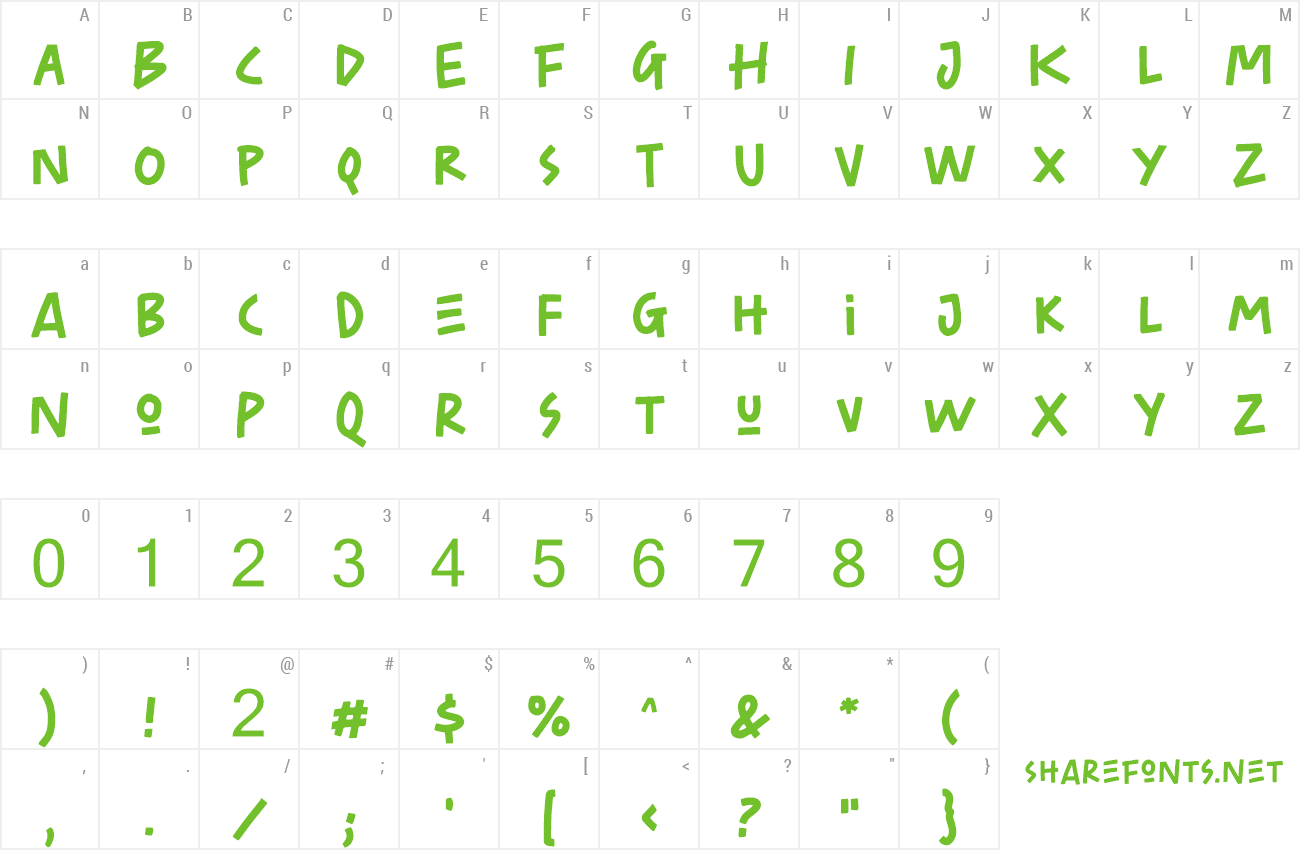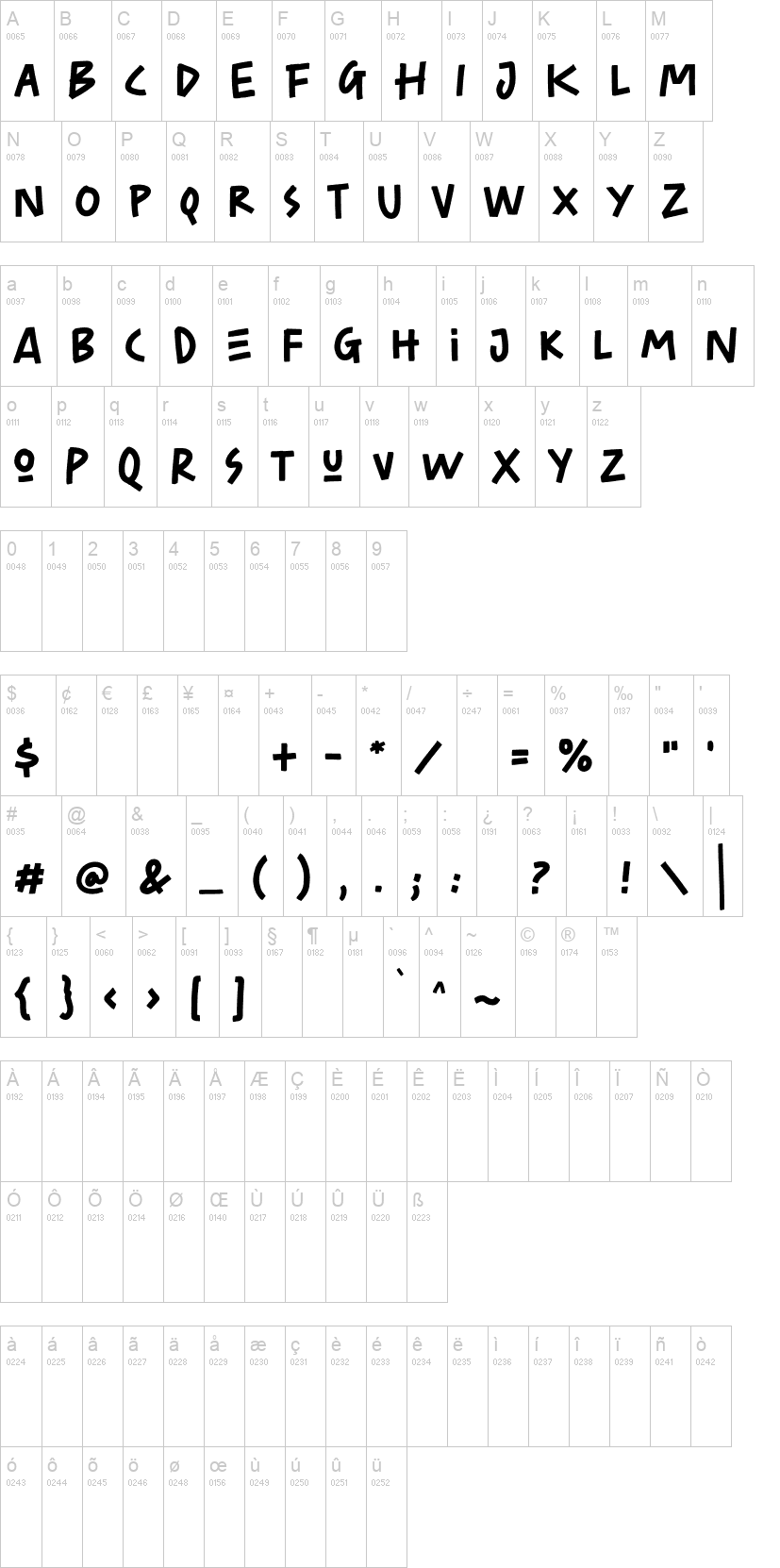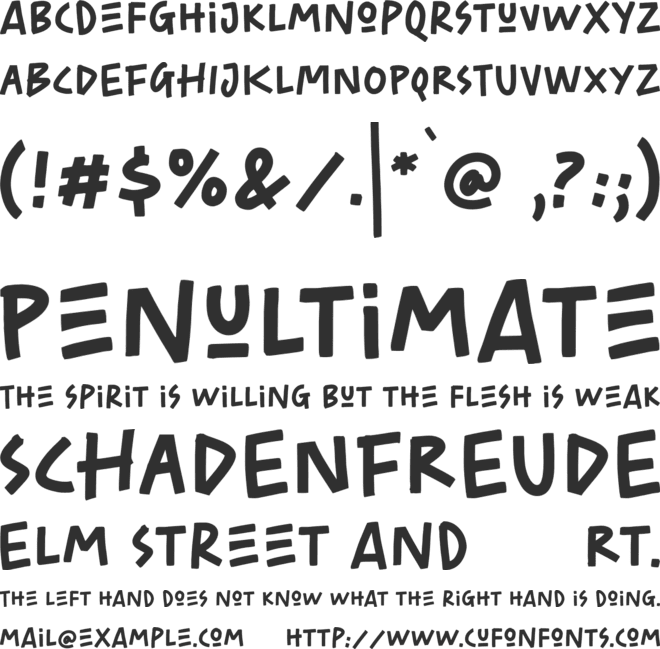
Blank Moment Font
Blank Moment Font - It has been downloaded 105 times. Web free download of blank moment font. 1 users have given the font a rating of 5.0 out of 5. Web blank moment regular is a regular opentype font. You can use this font for any project. Web blank moment by saridezra. This font will make your project more natural and humanist. Web blank moment is a quotable handwritten sans. It comes with lowercase, numbers, symbols, and multilingual support. Blank moment is a nice and never goes wrong choice for.
Click now to create a custom image with your own words that you can download. This font will make your project more natural and humanist. Web blank moment is a quotable handwritten sans. Web here you have blank moment, a font created by sarid ezra with a handwritten typeface, which is perfect to give a natural look. 19,234 downloads (4 yesterday) free for personal use. 1 users have given the font a rating of 5.0 out of 5. You can use this font for any project. Web blank moment by saridezra. It has been downloaded 105 times. Web blank moment regular is a regular opentype font.
Web blank moment is a quotable handwritten sans. This font will make your project more natural and humanist. It has been downloaded 105 times. Web blank moment by saridezra. 19,234 downloads (4 yesterday) free for personal use. Click now to create a custom image with your own words that you can download. Web blank moment regular is a regular opentype font. Web free download of blank moment font. You can find more information about blank moment regular and it's. Web here you have blank moment, a font created by sarid ezra with a handwritten typeface, which is perfect to give a natural look.
Blank Moment Display Font
Web blank moment regular is a regular opentype font. Web here you have blank moment, a font created by sarid ezra with a handwritten typeface, which is perfect to give a natural look. It has been downloaded 105 times. Web blank moment is a quotable handwritten sans. Web free download of blank moment font.
Blank Moment Quotable Font Cool fonts, Cartoon font, Beautiful fonts
19,234 downloads (4 yesterday) free for personal use. It comes with lowercase, numbers, symbols, and multilingual support. Web free download of blank moment font. You can use this font for any project. 1 users have given the font a rating of 5.0 out of 5.
Click now to create a custom image with your own words that you can download. You can use this font for any project. Web blank moment by saridezra. Web blank moment is a quotable handwritten sans. Web free download of blank moment font.
Blank Moment Quotable Font In this moment, Creative fonts, Fonts
It has been downloaded 105 times. You can use this font for any project. Blank moment is a nice and never goes wrong choice for. Web here you have blank moment, a font created by sarid ezra with a handwritten typeface, which is perfect to give a natural look. 1 users have given the font a rating of 5.0 out.
Blank Moment DEMO font
Click now to create a custom image with your own words that you can download. Web blank moment regular is a regular opentype font. You can use this font for any project. Web here you have blank moment, a font created by sarid ezra with a handwritten typeface, which is perfect to give a natural look. Blank moment is a.
Blank Moment Font
You can use this font for any project. Web blank moment by saridezra. This font will make your project more natural and humanist. Web here you have blank moment, a font created by sarid ezra with a handwritten typeface, which is perfect to give a natural look. Web blank moment is a quotable handwritten sans.
Blank Moment font by Saridezra FontRiver
It comes with lowercase, numbers, symbols, and multilingual support. Click now to create a custom image with your own words that you can download. Web blank moment by saridezra. You can find more information about blank moment regular and it's. This font will make your project more natural and humanist.
Blank Moment Display Font
This font will make your project more natural and humanist. It comes with lowercase, numbers, symbols, and multilingual support. It has been downloaded 105 times. Web blank moment is a quotable handwritten sans. Web here you have blank moment, a font created by sarid ezra with a handwritten typeface, which is perfect to give a natural look.
Blank Moment font by Saridezra FontRiver
19,234 downloads (4 yesterday) free for personal use. Web free download of blank moment font. It has been downloaded 105 times. Blank moment is a nice and never goes wrong choice for. Web blank moment by saridezra.
Blank Moment DEMO Font Download Free for Desktop & Webfont
It comes with lowercase, numbers, symbols, and multilingual support. Web blank moment regular is a regular opentype font. Web here you have blank moment, a font created by sarid ezra with a handwritten typeface, which is perfect to give a natural look. Click now to create a custom image with your own words that you can download. You can use.
Web Blank Moment By Saridezra.
19,234 downloads (4 yesterday) free for personal use. 1 users have given the font a rating of 5.0 out of 5. It has been downloaded 105 times. Click now to create a custom image with your own words that you can download.
This Font Will Make Your Project More Natural And Humanist.
It comes with lowercase, numbers, symbols, and multilingual support. Blank moment is a nice and never goes wrong choice for. Web blank moment is a quotable handwritten sans. Web blank moment regular is a regular opentype font.
You can find more information about blank moment regular and it's. Web here you have blank moment, a font created by sarid ezra with a handwritten typeface, which is perfect to give a natural look. You can use this font for any project.